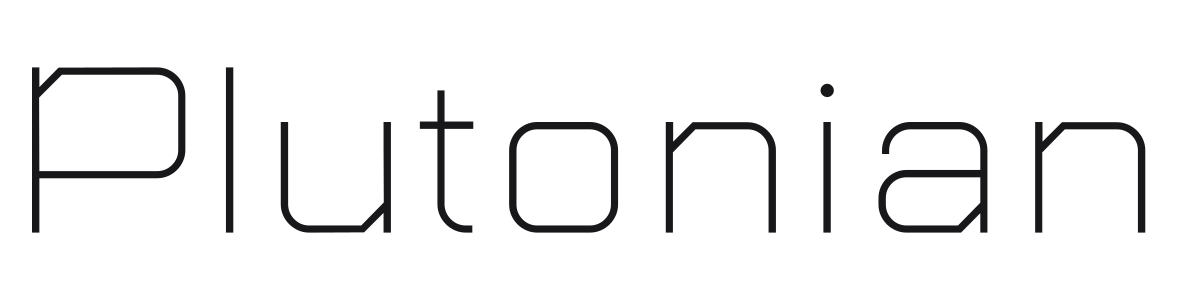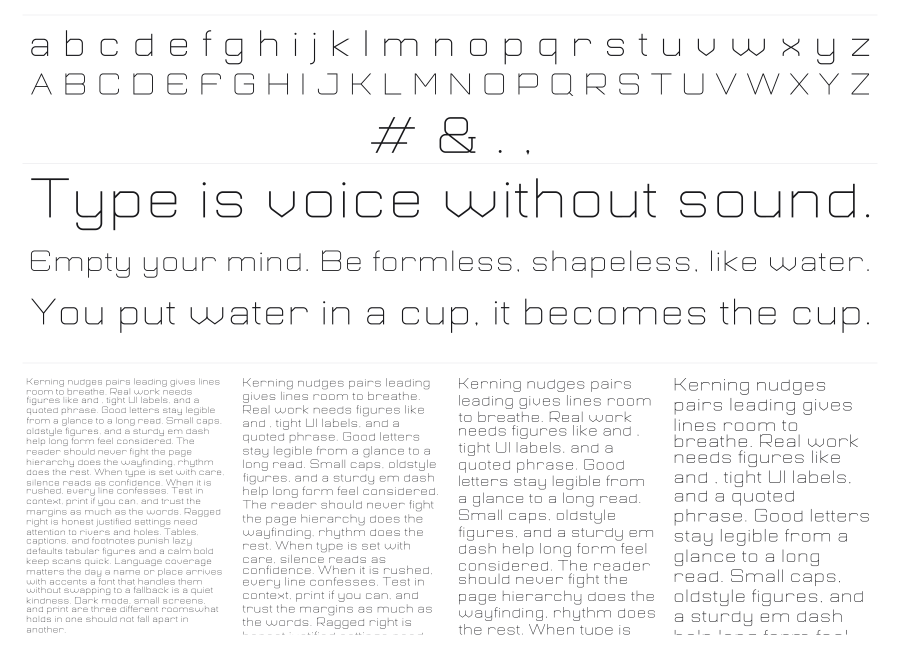
Plutonian
Plutonian is an ultra-light geometric sans-serif with hairline strokes and wide, open proportions. Rounded terminals give it a soft, approachable edge that keeps it from feeling purely technical, sitting somewhere between futuristic minimalism and refined elegance. It works best at large sizes where the delicate weight and generous spacing can breathe.